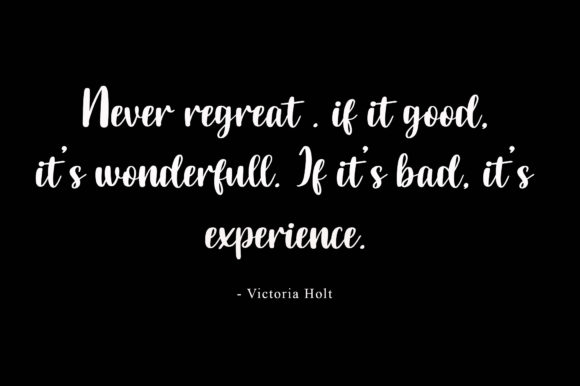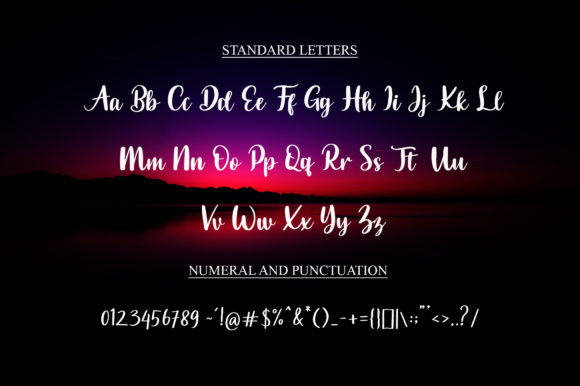
Rainbow Cute Font
db-ku.com - Script & Handwritten -- Rainbow Cute is a sweet, all round and flexible handwritten font. Warm, romantic and jolly, this font will turn each of your project ideas into real works of art. Have fun with this beautiful font and explore its endless variations.